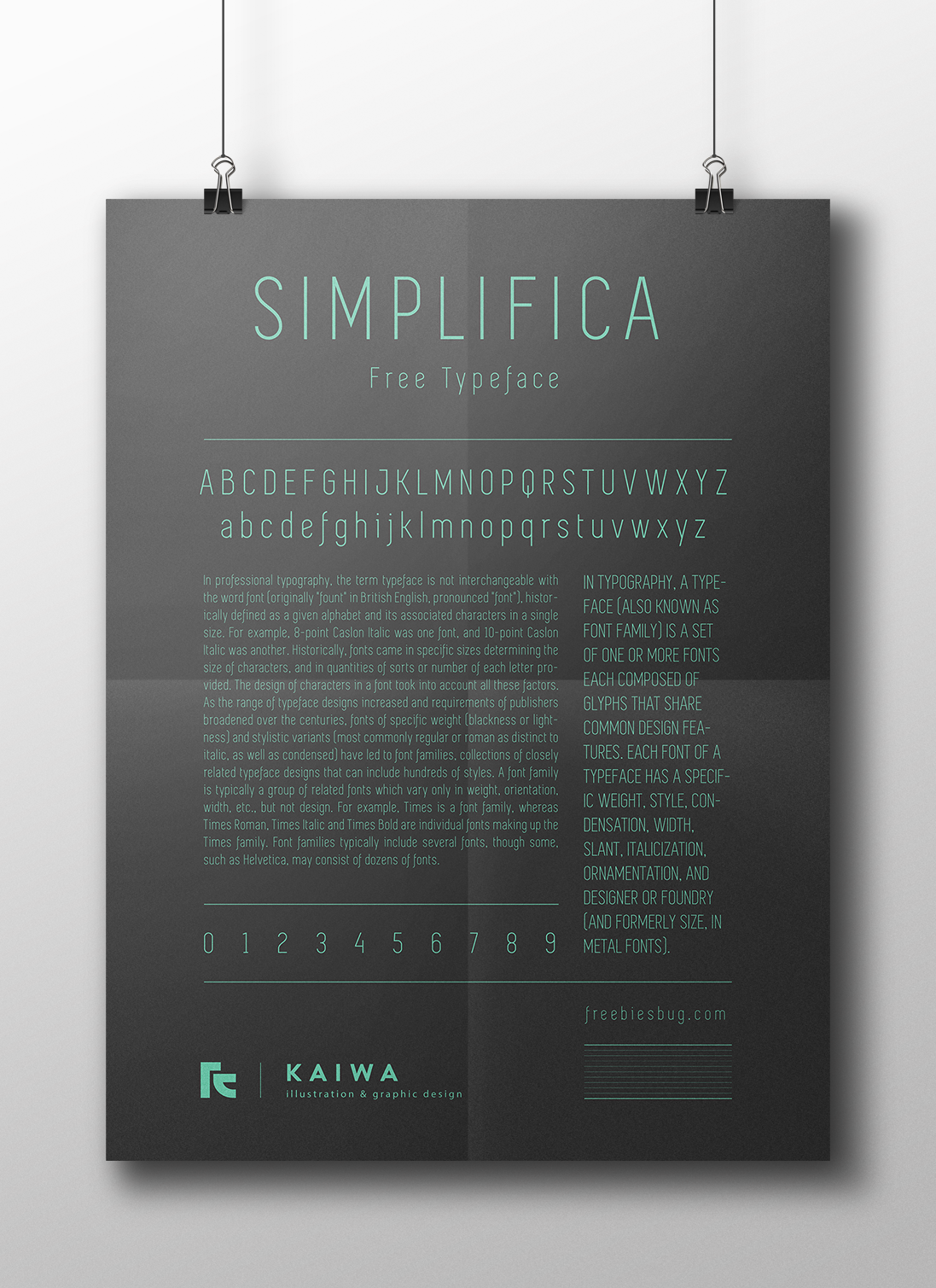
Simplifica Font| Free Typeface is a slightly condensed sans-serif typeface featured by an uniform and thin line width. Its high positioned capsheight and ascender favours legibility. A fine, simple and clear font. This font features both uppercase, lowercase charactes, numerals, accents, and special characters.It is perfect for body text, headlines, paragraphs, and so on. You can easily use it for personal and commercial purpose.